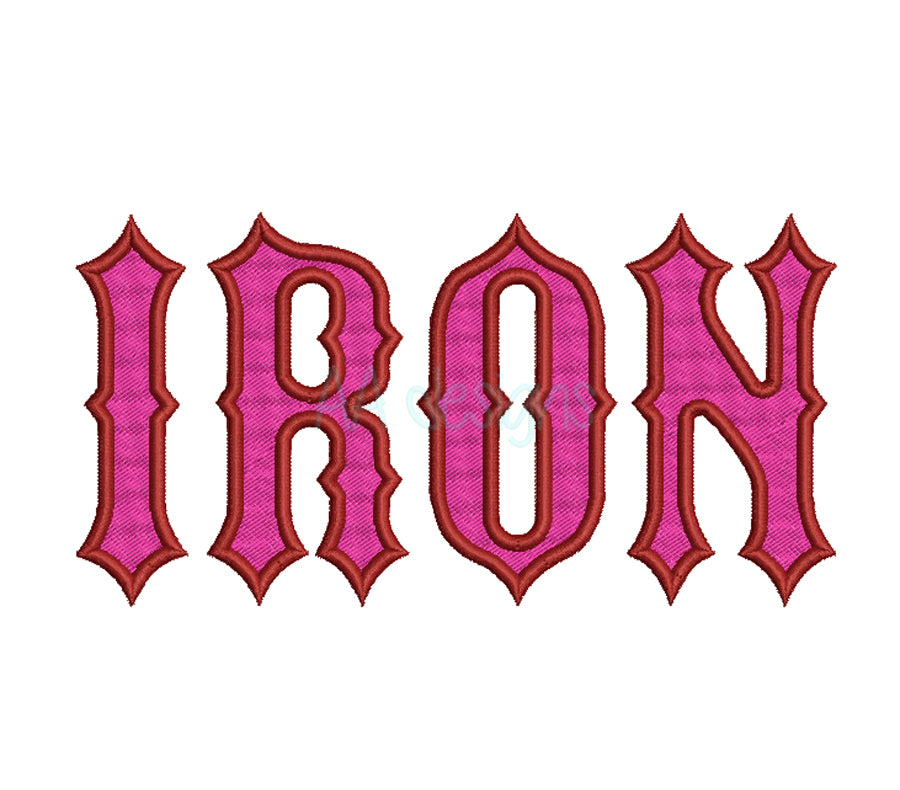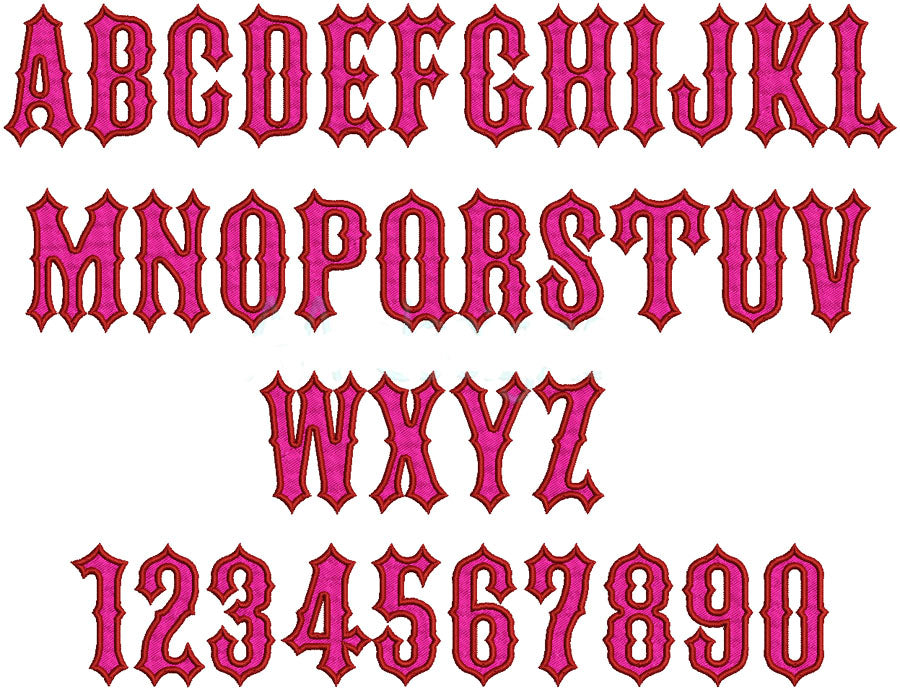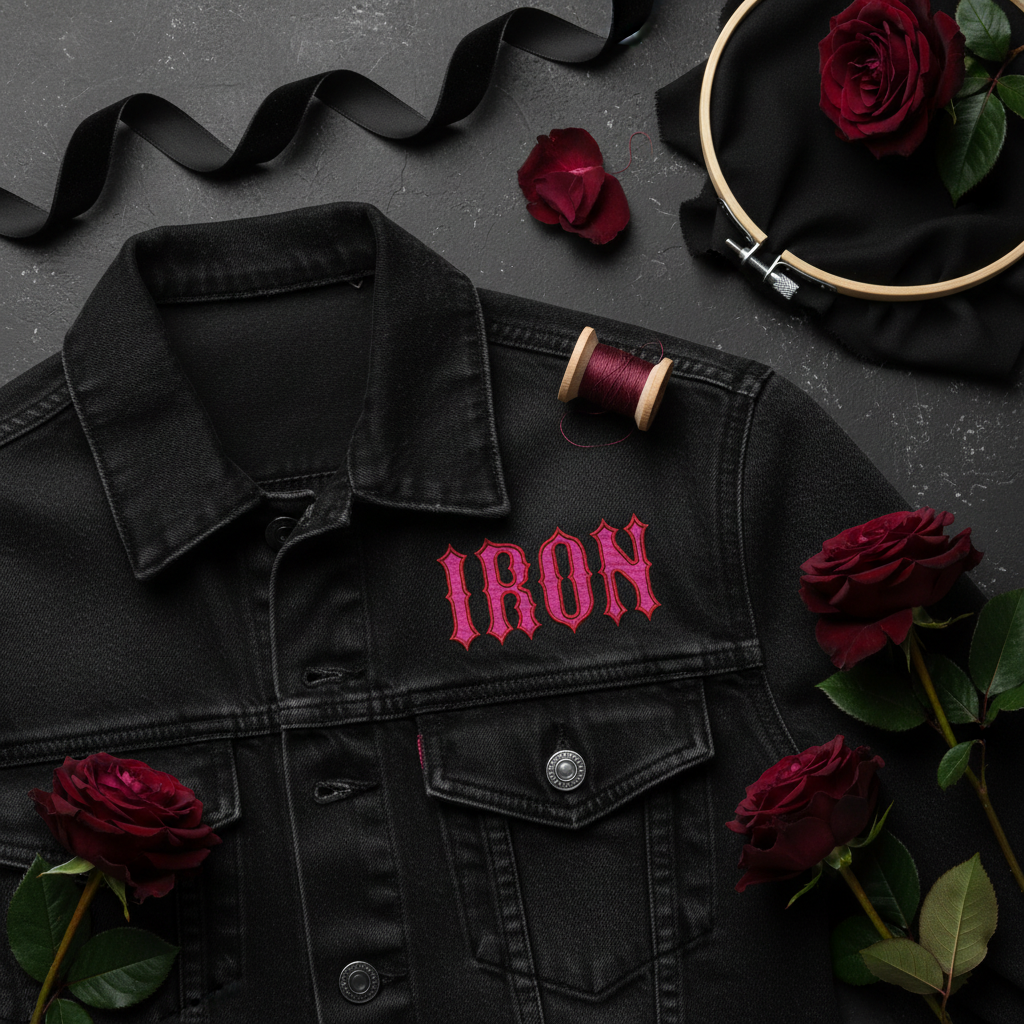
Add a bold, vintage-inspired look to your machine embroidery projects with the Iron Gothic Embroidery Font. Its striking Gothic style is perfect for monograms, names, jackets, bags, and personalized gifts.